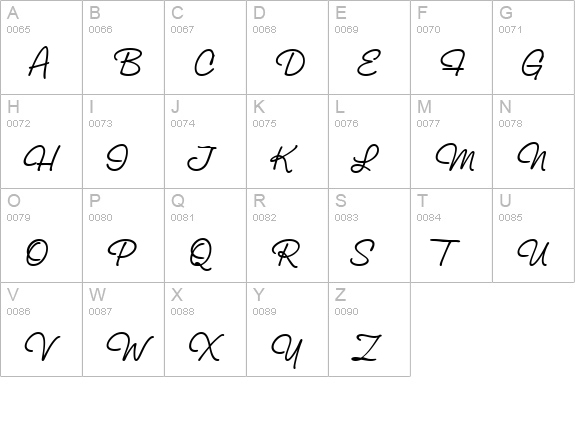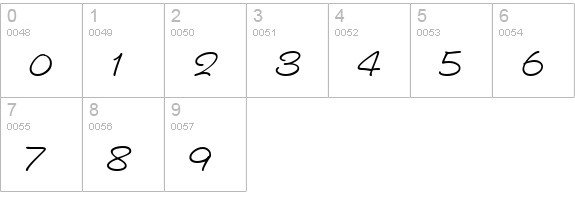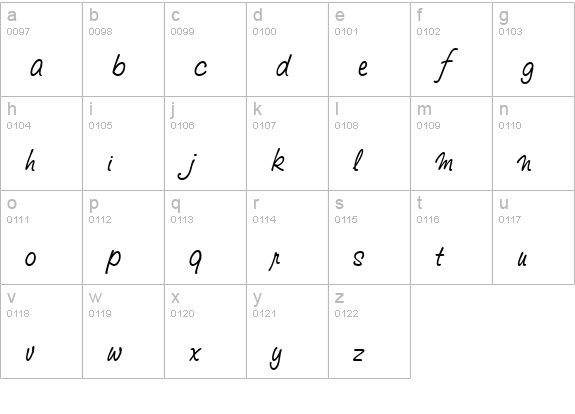
Studio Script ICG Font Details
Studio Script ICG is a beautifully crafted font that exudes elegance and sophistication. With its delicate curves and stylish flourishes, this script font is perfect for adding a touch of class to any design project. Whether you're working on invitations, logos, or branding materials, Studio Script ICG will elevate your work to the next level. The best part? Studio Script ICG is available for free download at FontsMarket.com. So you can add this stunning font to your collection without breaking the bank. Don't miss out on the opportunity to enhance your designs with the timeless beauty of Studio Script ICG. Download it today and see the difference it can make in your projects!